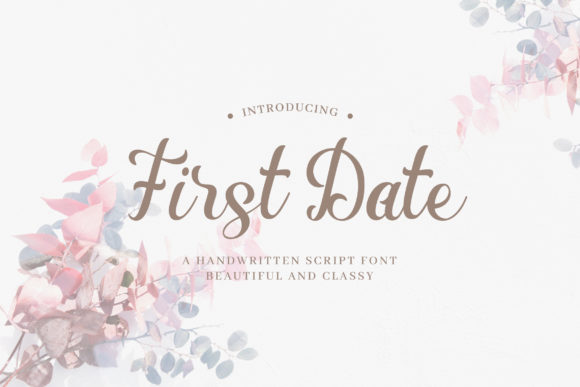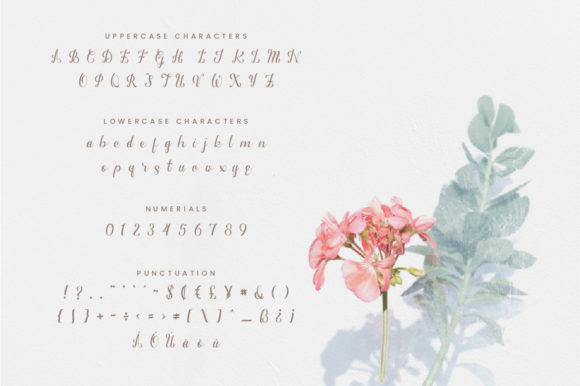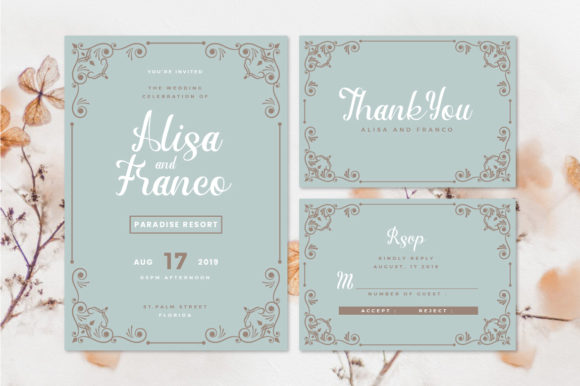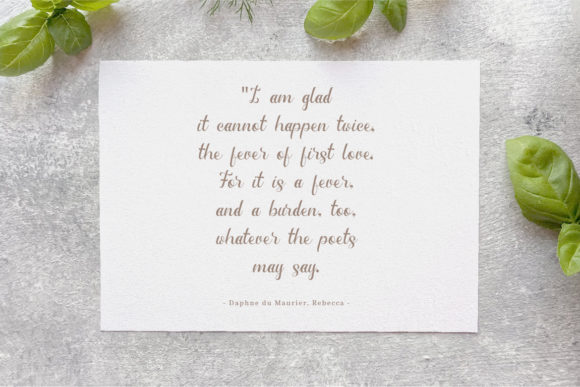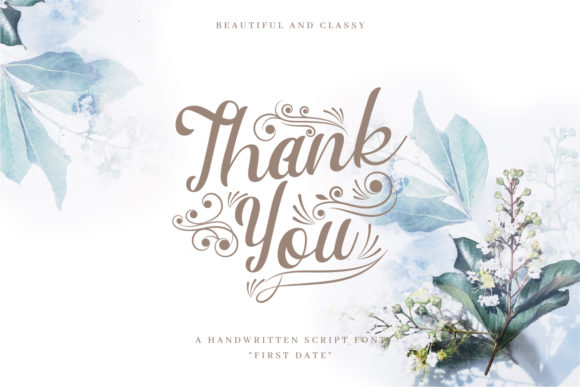
First Date Font
About First Date Font
First Date is a charming handwritten font that brings an authentic and personal touch to a wide range of design projects. Its unique and natural feel makes it ideal for various applications, including logos, branding, product packaging, and more. Here are some ways you can use First Date to enhance your design projects:
1. Logo Design: Create memorable and distinctive logos using First Date’s handwritten style. Its authenticity will make your brand stand out and leave a lasting impression on customers.
2. Branding: Use First Date as part of your brand identity, incorporating it into business cards, letterheads, and other branding materials to add a personal and approachable touch.
3. Product Packaging: Enhance product packaging with First Date’s handwritten lettering for a handcrafted and artisanal look. It works well for various products, from handmade crafts to organic and natural goods.
4. Social Media Graphics: Utilize First Date in your social media posts and graphics to infuse them with a warm and friendly vibe. It’s perfect for sharing quotes, announcements, and engaging with your audience.
5. Product Labels: Create charming and eye-catching product labels using First Date for a unique and authentic appearance.
6. Stationery: Design personalized stationery sets, including notepads, thank you cards, and envelopes, using First Date’s natural and friendly handwriting.
7. Blog Headers: Use First Date for blog headers and post titles to create a welcoming and relatable atmosphere for your readers.
8. Book and Magazine Covers: Incorporate First Date into book titles or magazine covers to add a personal and approachable touch to your designs.
9. Handmade Crafts: If you create handmade crafts, use First Date to add a personal touch to tags, labels, or packaging.
10. Personal Branding: For individuals or freelancers, use First Date as part of your personal branding to showcase your creativity and approachability.
11. Quotes and Posters: Design beautiful and artistic quote graphics or posters using First Date’s handwritten style to make your message more heartfelt and expressive.
12. Event Invitations: Create charming and unique event invitations using First Date’s authentic handwriting for a personal and inviting touch.
13. Art and Photography Watermarks: Protect and brand your artwork or photography with First Date’s handwritten watermark.
14. Signage: Use First Date for boutique signage or in-store displays to create a warm and welcoming ambiance.
15. Crafty DIY Projects: Incorporate First Date into various crafty DIY projects like handmade cards, scrapbooking, or journaling for an added personal touch.
16. Cafe Menus: Use First Date for menu boards or chalkboard displays in cafes and restaurants to create a friendly and welcoming atmosphere.
17. Wedding Stationery: Add a personal and romantic touch to wedding invitations, save-the-date cards, and place cards using First Date’s elegant handwriting.
18. Personal Blog Design: If you run a personal blog, use First Date in your blog design to infuse your content with an authentic and friendly vibe.
19. Personalized Gifts: Create personalized gifts like custom prints or monogrammed items using First Date’s charming lettering.
20. Artistic Calligraphy: Use First Date for artistic calligraphy projects or as a base for creating custom calligraphy pieces.
First Date’s handwritten authenticity will undoubtedly elevate your design projects, making them feel more personal, approachable, and engaging. Embrace the natural and charming feel of this font, and explore the numerous creative possibilities it offers for your designs!